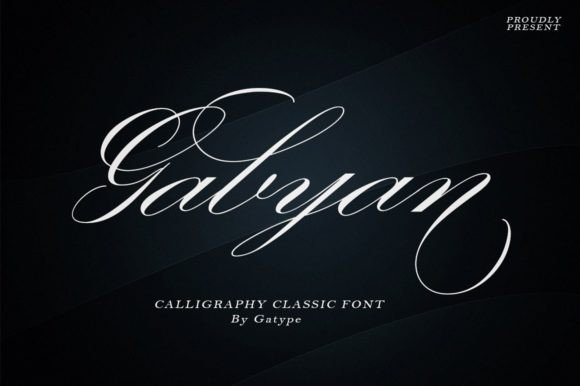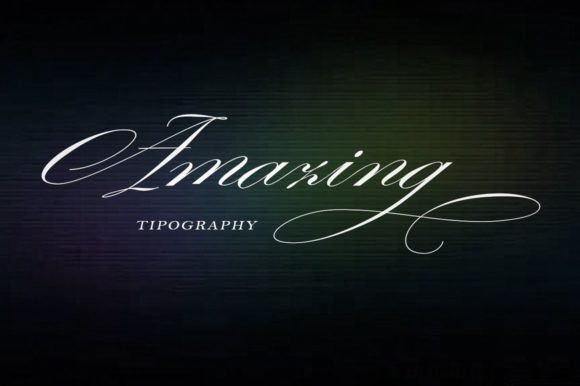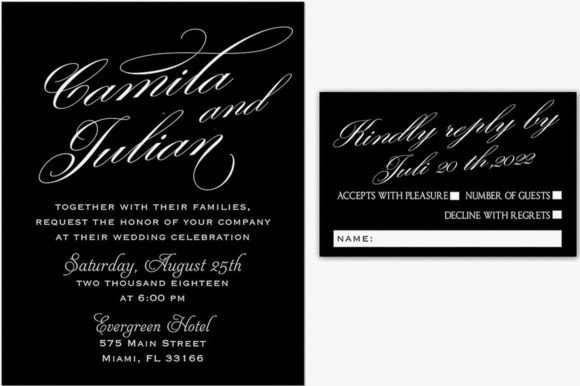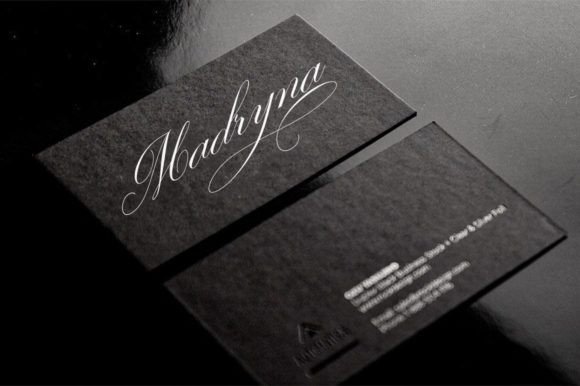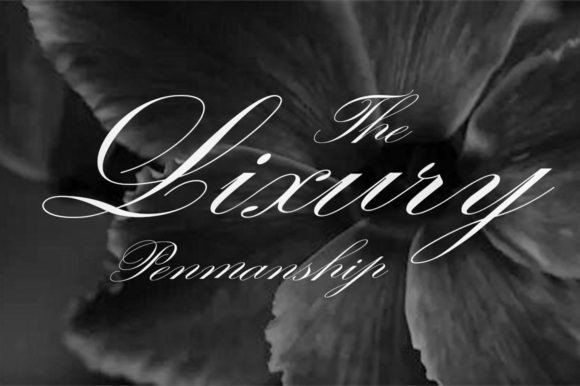
Gabyan Font
About Gabyan Font
Gabyan stands out as an elegant calligraphy font, combining a sense of casual charm with graceful swashes. Its versatility makes it a perfect choice for a multitude of purposes, including logos, product packaging, wedding invitations, branding, headlines, signage, labels, signatures, book covers, posters, quotes, and more. Gabyan exudes a timeless and sophisticated quality, making it well-suited for projects that demand an infusion of grace and style.
The inclusion of swashes in Gabyan adds a decorative touch, enhancing its overall beauty and lending a sense of fluidity to the characters. Whether you’re working on a refined wedding invitation or designing a striking logo, Gabyan provides the elegance needed to elevate your creative endeavors.
One notable feature of Gabyan is its PUA encoding, ensuring convenient access to all the glyphs and swashes. This user-friendly aspect allows for seamless integration of unique characters into your designs, opening up a realm of creative possibilities.
In summary, Gabyan is more than just a font; it’s a design asset that brings an elegant and sophisticated calligraphy style to a diverse range of projects. Whether applied to digital or print media, its versatility, swashes, and PUA encoding make Gabyan a valuable companion for designers aiming to infuse timeless beauty into their work, leaving a lasting impact on their audience.